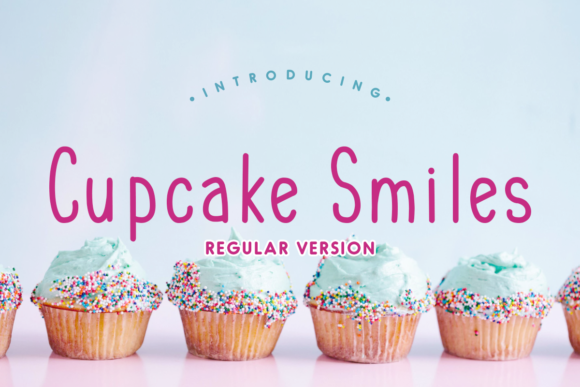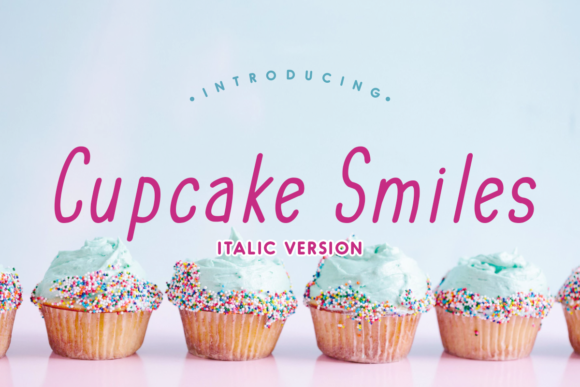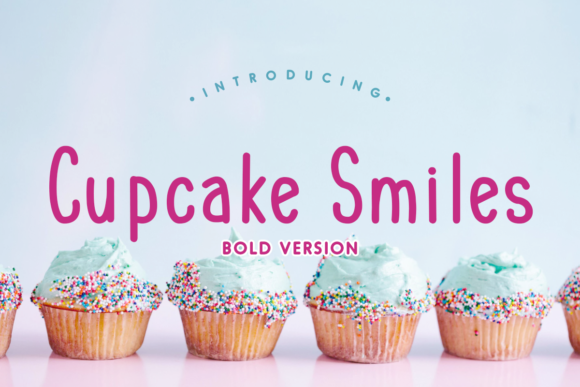
Cupcake Smiles Family Font
About Cupcake Smiles Family Font
The Cupcake Smiles is a fun family. It comes in 5 weights which gives you the opportunity to create endless unique designs.